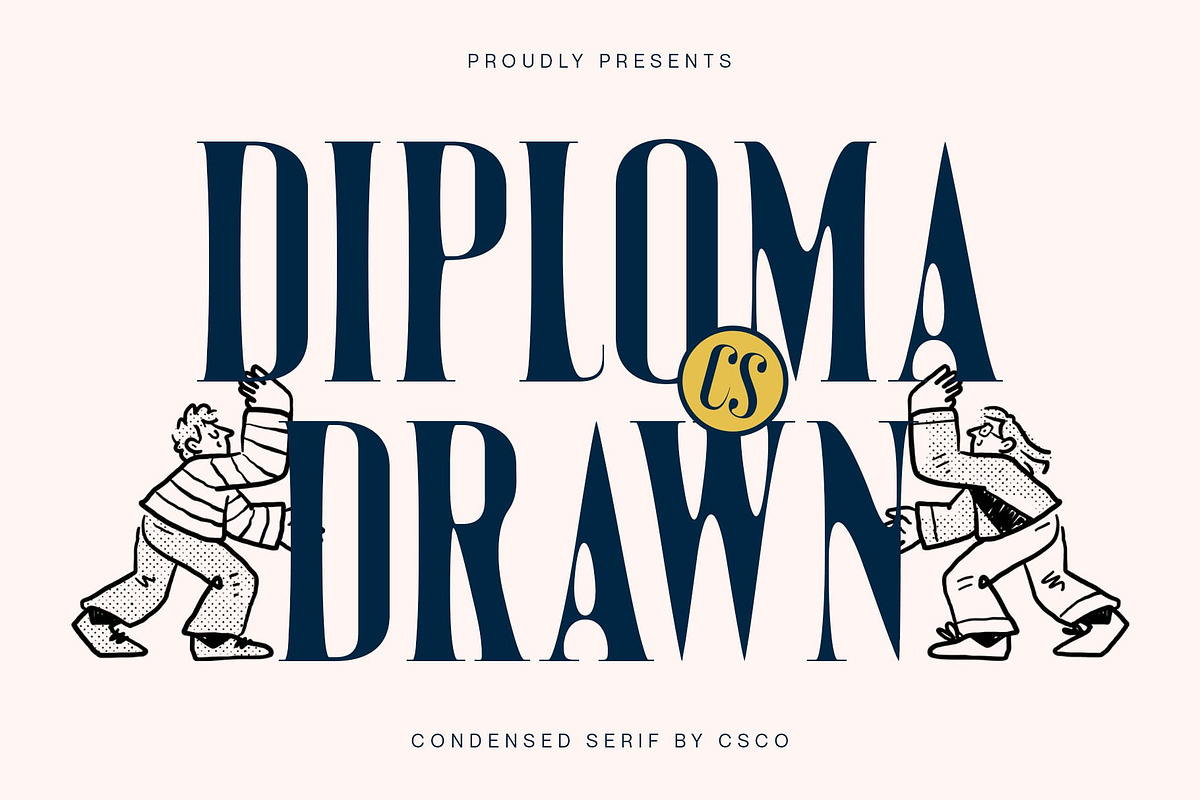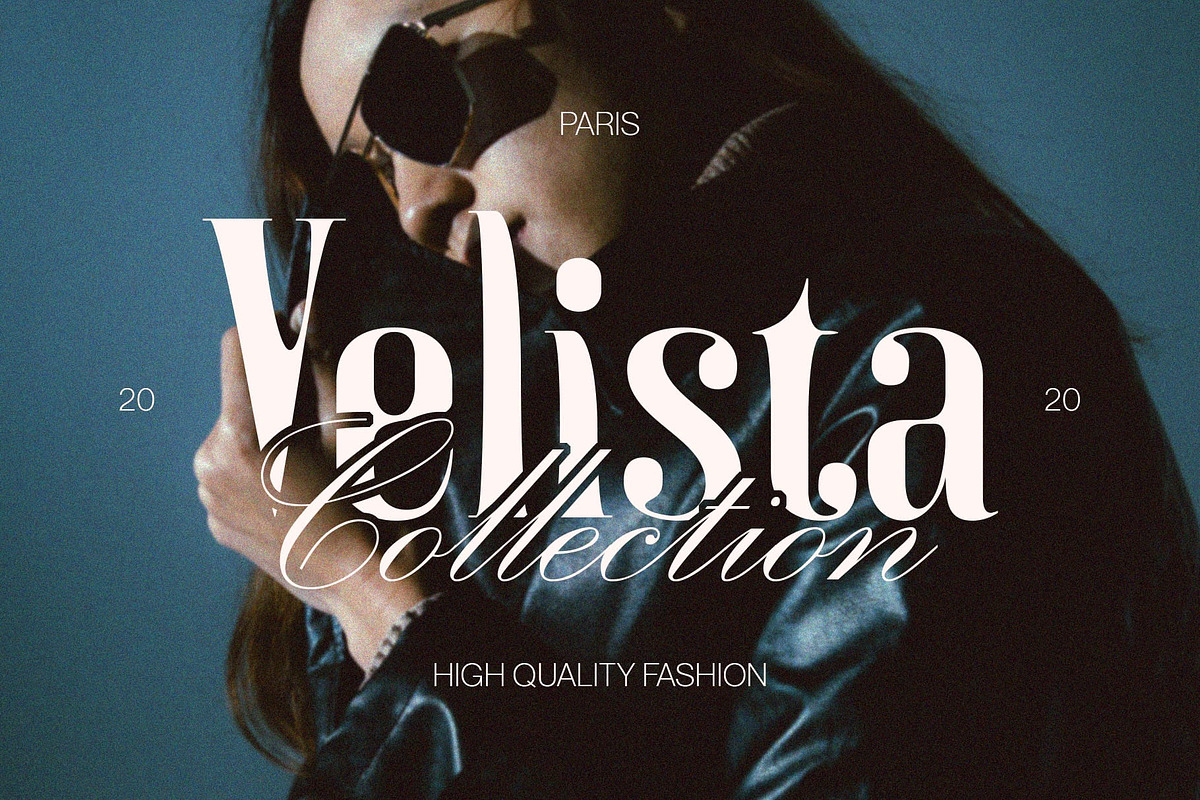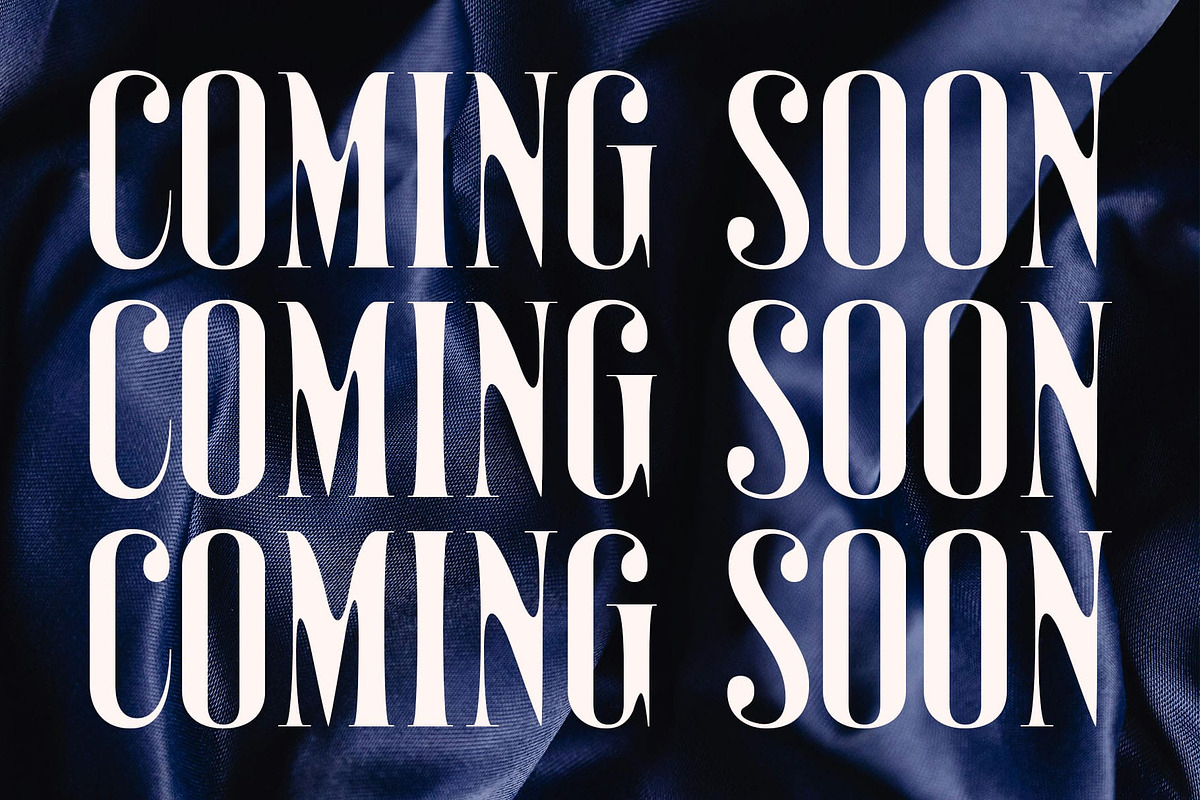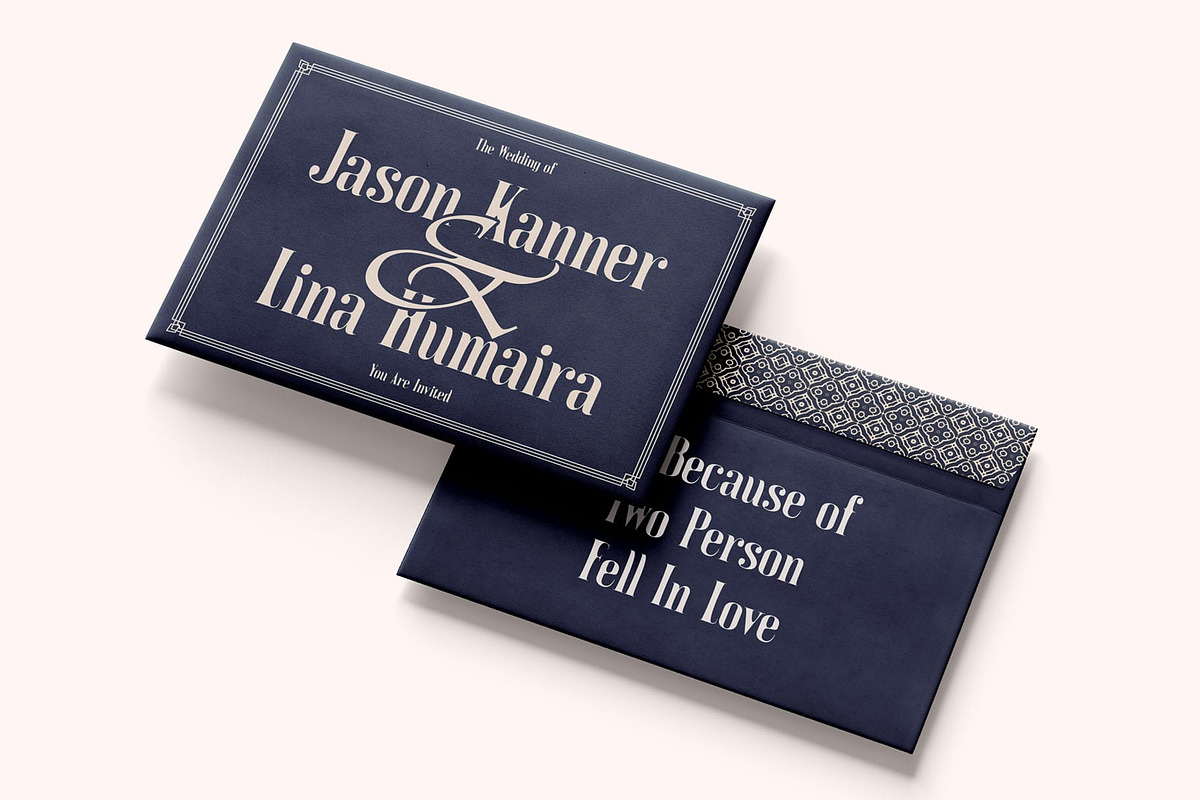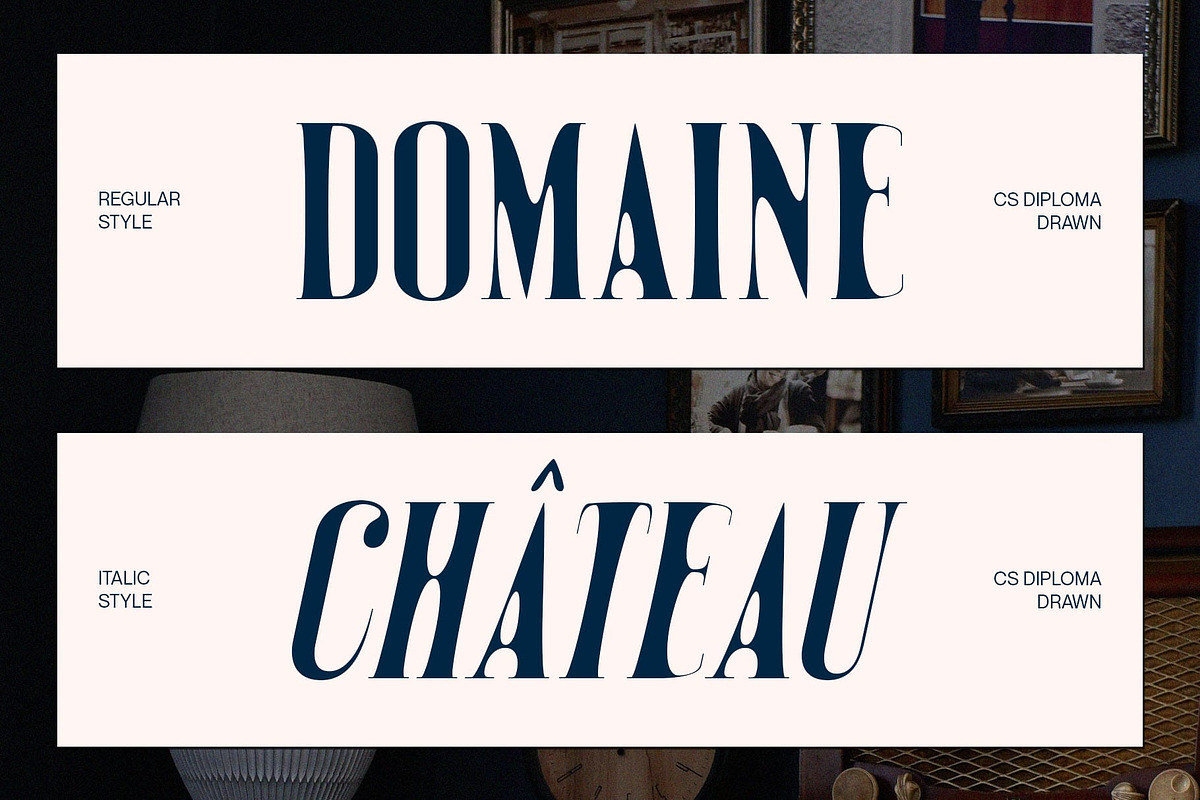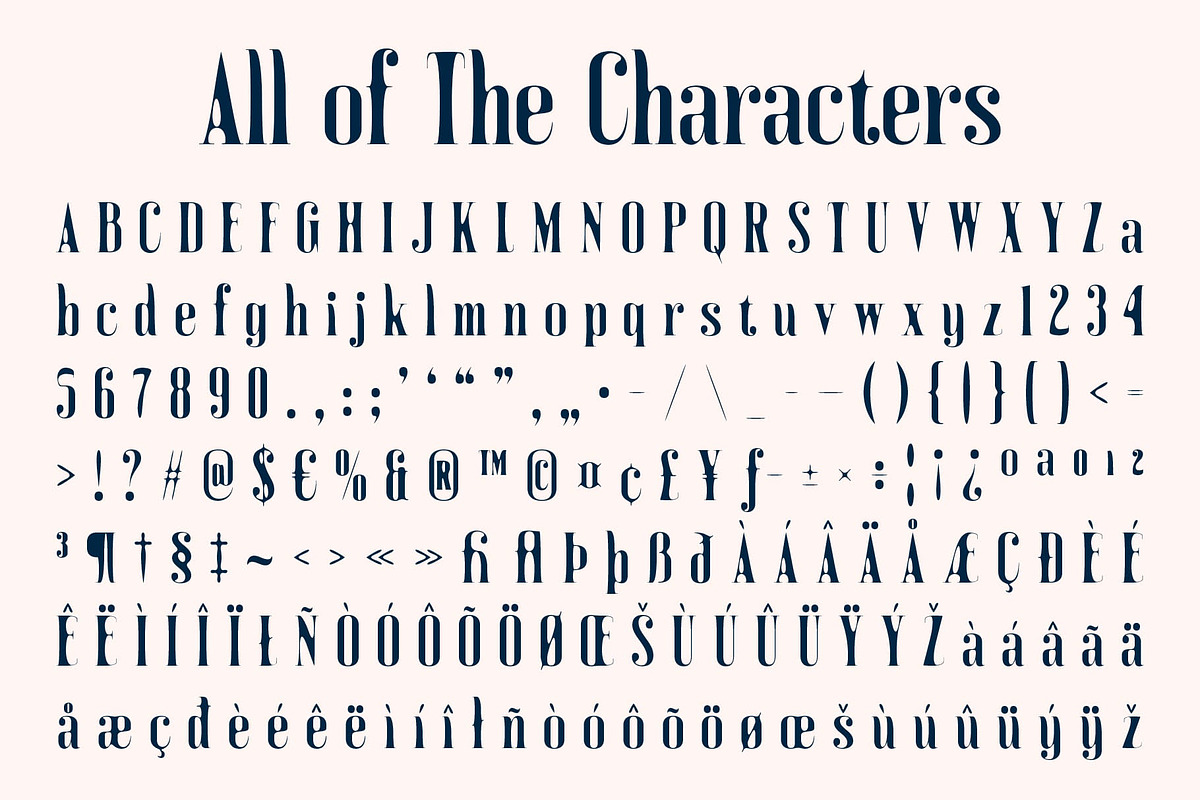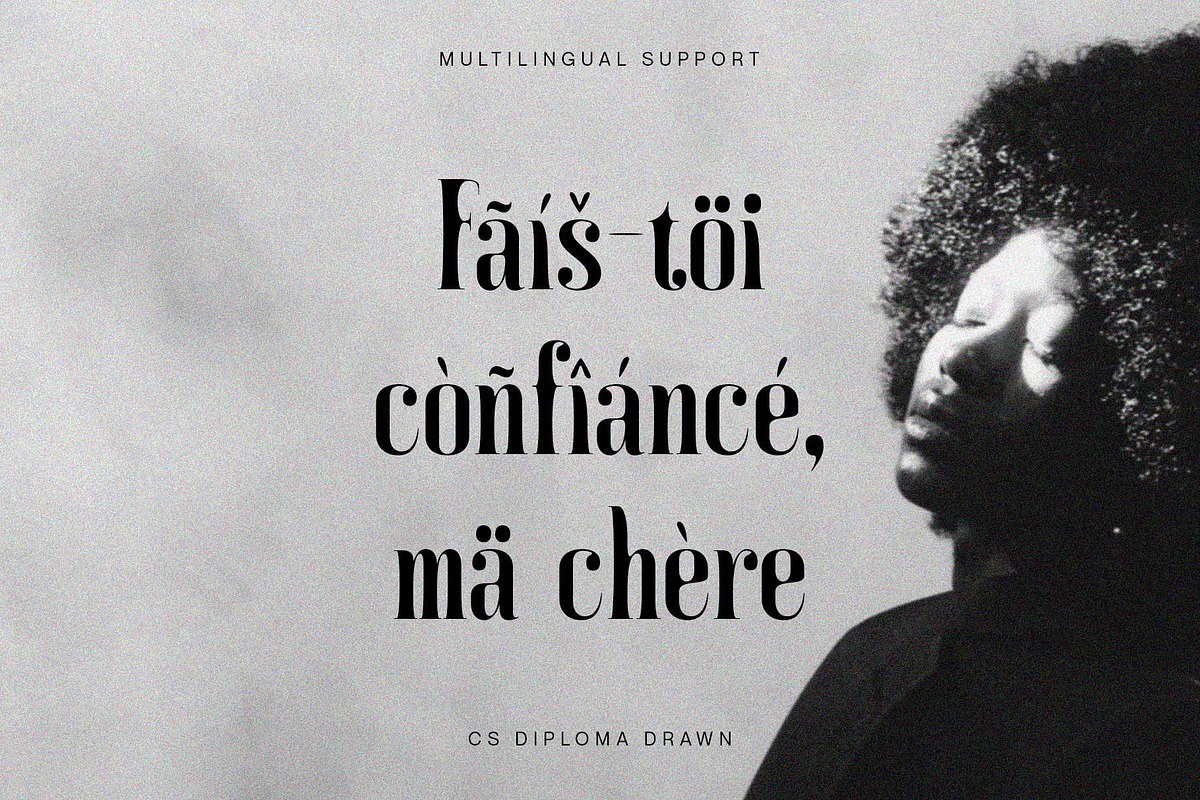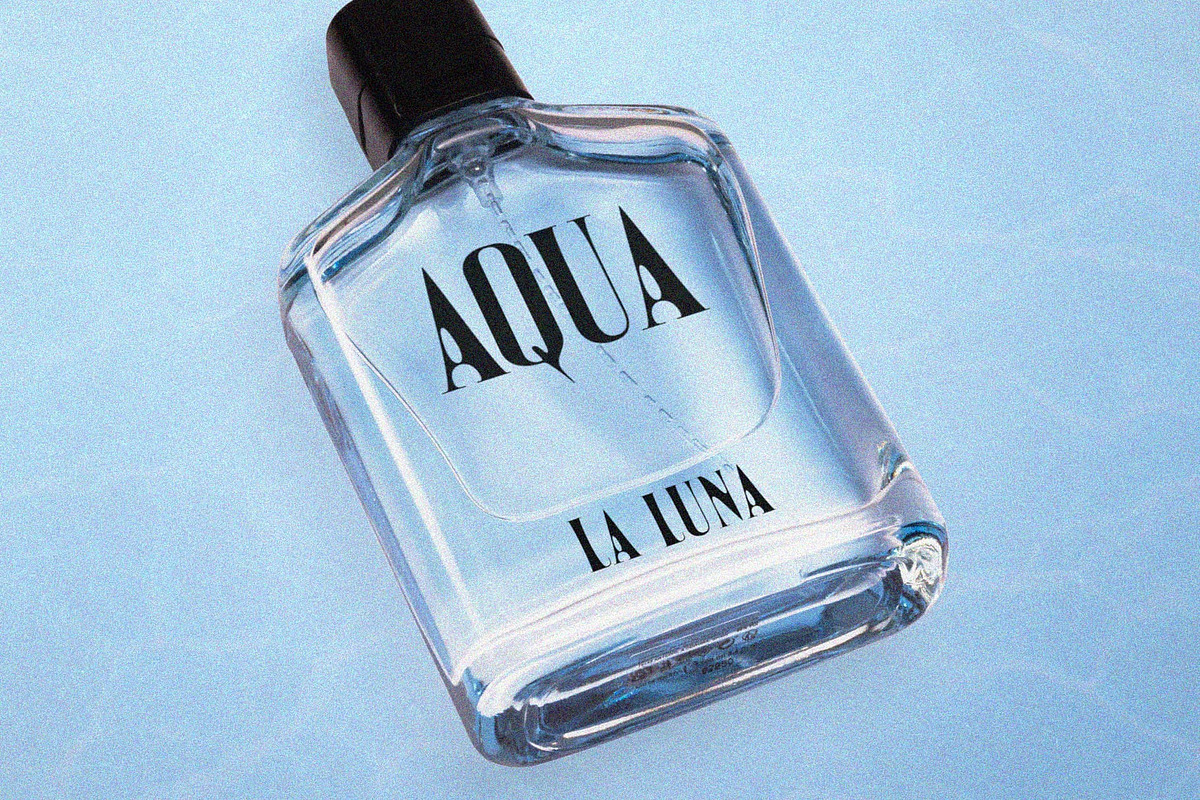
CS Diploma Drawn
CS Diploma Drawn – Condensed Modern Serif with Handcrafted Elegance
Sleek, Sophisticated, and Artistically Defined CS Diploma Drawn is a modern serif font that features a clean, sharp, and condensed letterform structure, refined with a delicate drawn effect that gives it a warm, handcrafted presence. The design’s slim proportions and contemporary detailing bring a sense of clarity and confidence, while the hand-drawn texture adds a subtle artistic charm.
Modern Precision Meets Handcrafted Personality With its crisp serif lines and elegant vertical rhythm, this minimalist font captures the essence of modern sophistication. The drawn finish introduces organic imperfections that soften the rigidity, lending each letter a human and expressive quality—perfect for designs that balance professionalism and personality.
Tailored for Elegant, High-Design Projects This typeface is perfect for luxury branding, fashion editorials, refined book covers, boutique packaging, and any project seeking to elevate its visual presence with a font that feels both structured and soulfully artistic. Its narrow width and elegant form ensure space efficiency without sacrificing style, making it a versatile choice across print and digital applications.
Refined, Distinctive, and Visually Captivating This sophistication font doesn’t just deliver on aesthetics—it creates atmosphere. It evokes a sense of refined exclusivity and editorial sophistication, ideal for brands and creatives looking to make a lasting, tasteful impression with their typography.
- CS Diploma Drawn Regular
- CS Diploma Drawn Italic